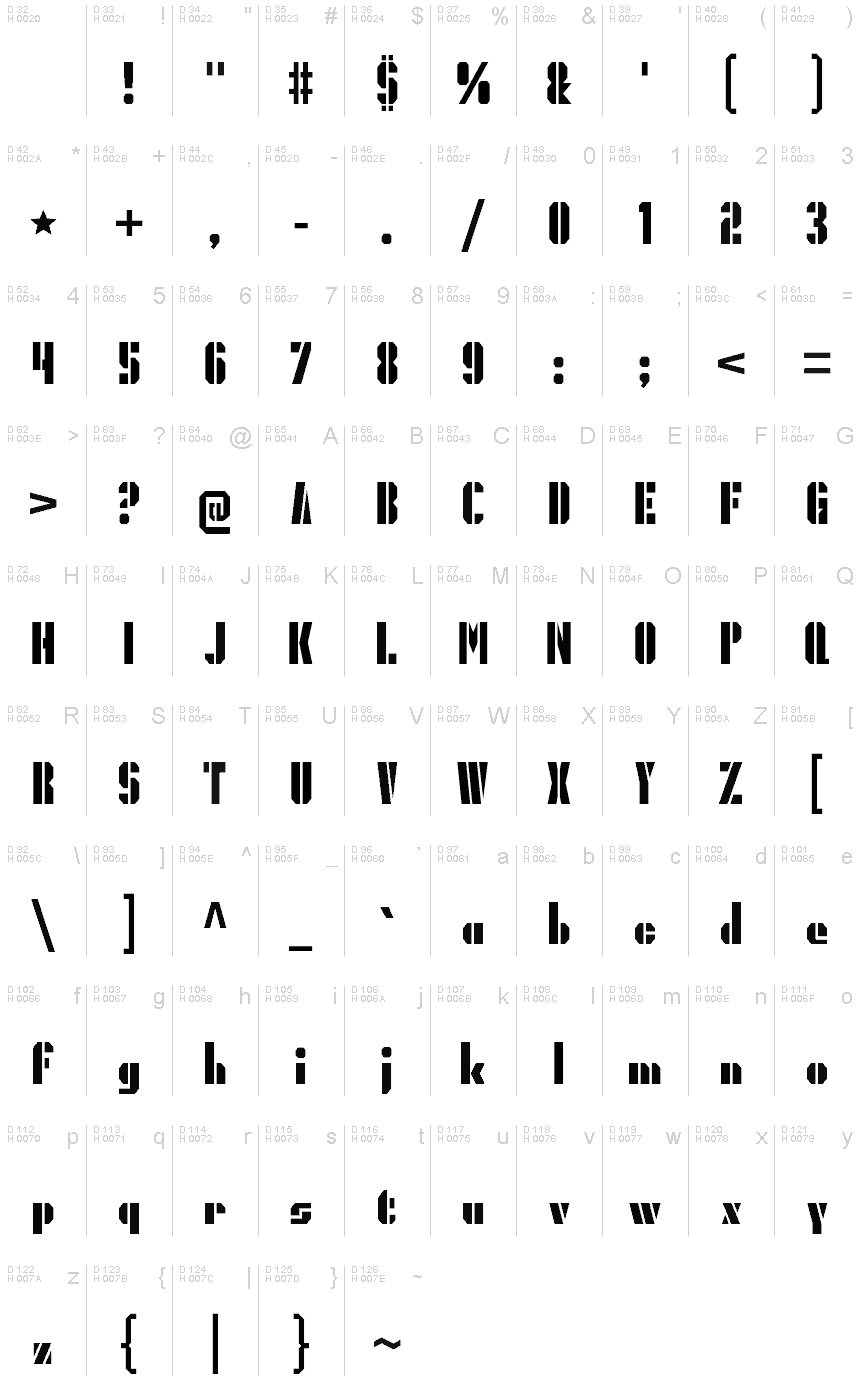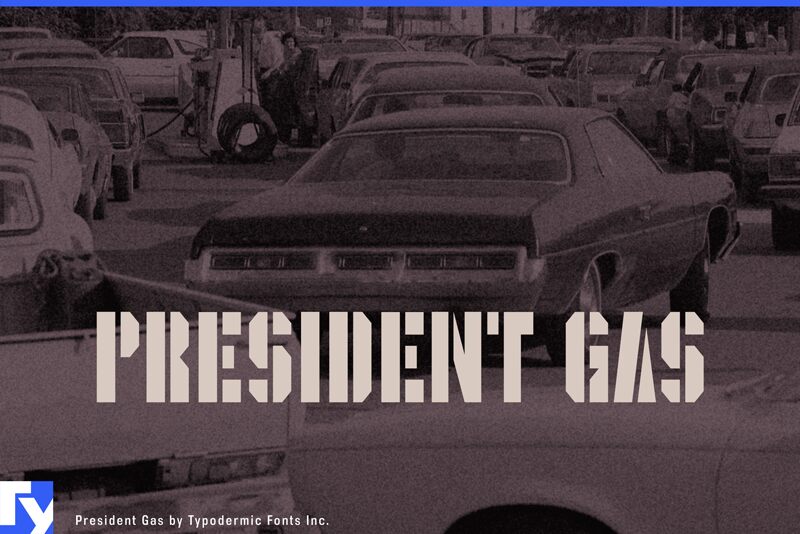
PresidentGas-Regular
President Gas is a masculine, octagonal, stencil font. It was created in 1997. The latest version has all better spacing, better kerning, more language coverage and web-font optimization.
Ray Larabie